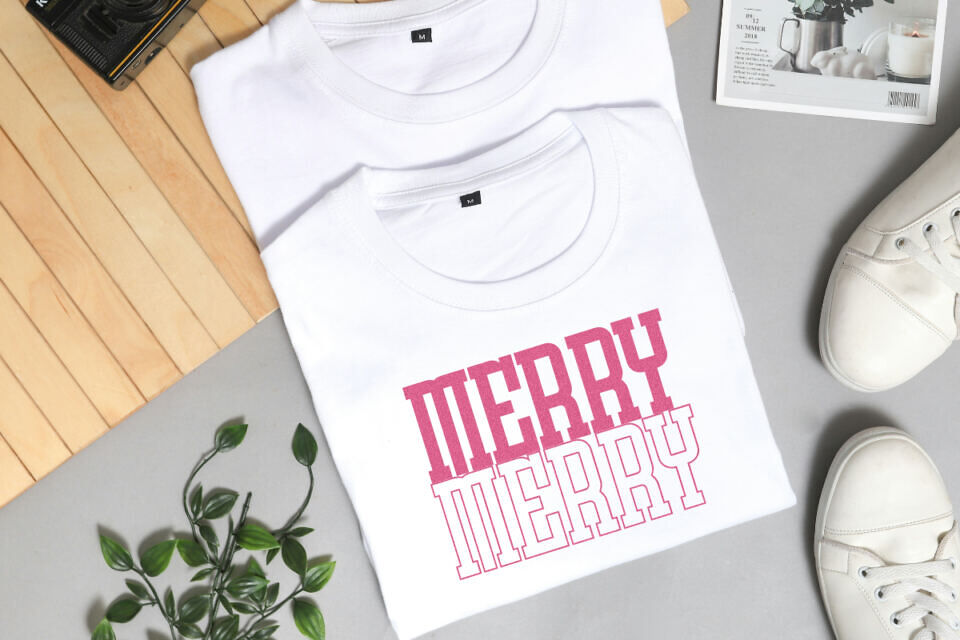
Absolute is a powerful and versatile Condensed Slab Serif font featuring both Regular (Solid) and Outline styles, perfect for designers who need a bold, athletic, and vintage collegiate look. This all-caps typeface is an excellent choice for sports and team branding, varsity apparel, retro posters, massive headlines, college-themed projects, logos, and packaging design.
Its clean, condensed, and assertive nature guarantees maximum impact on any display. The layered Regular and Outline styles allow for creative color combinations and a distinct, memorable aesthetic, delivering a genuine vintage athletic feel.